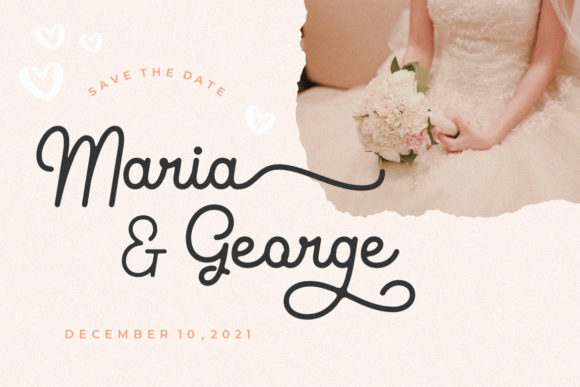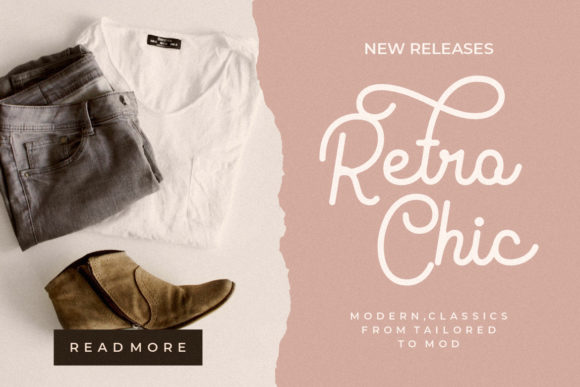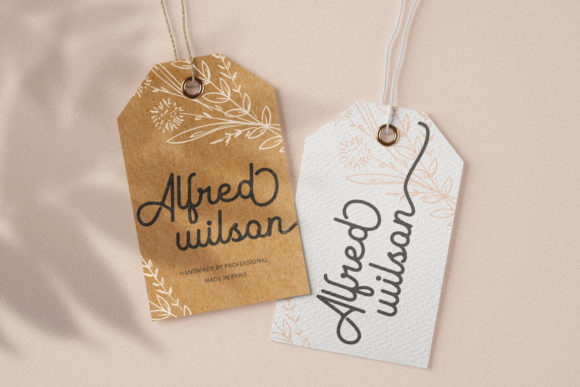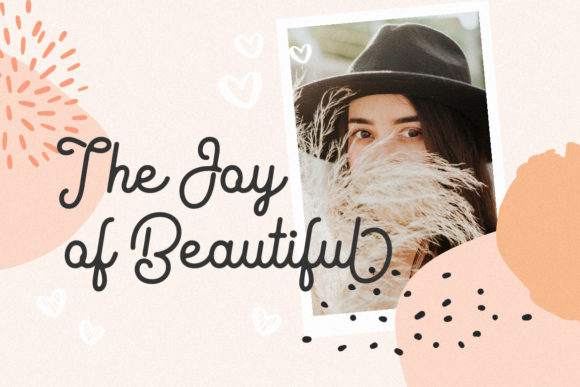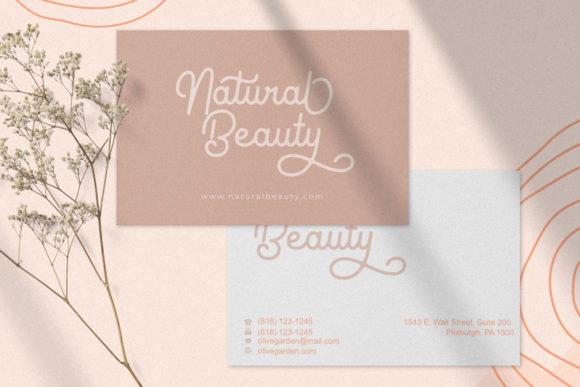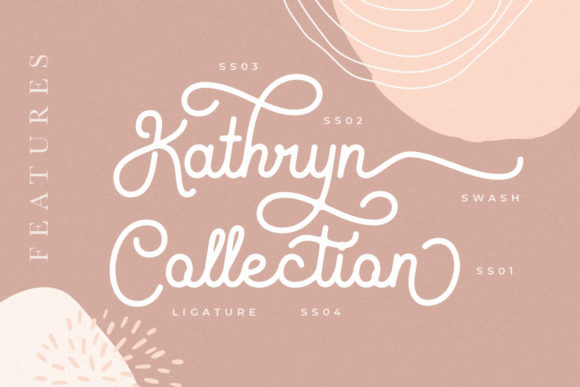
Introduction to Fioretta Font
Fioretta is a classic and flowing handwritten font.
Use this font to add that special handwritten touch to any design idea you can think of This font is PUA encoded which means you can access all of the glyphs and swashes with ease.
Key Features of Fioretta Font